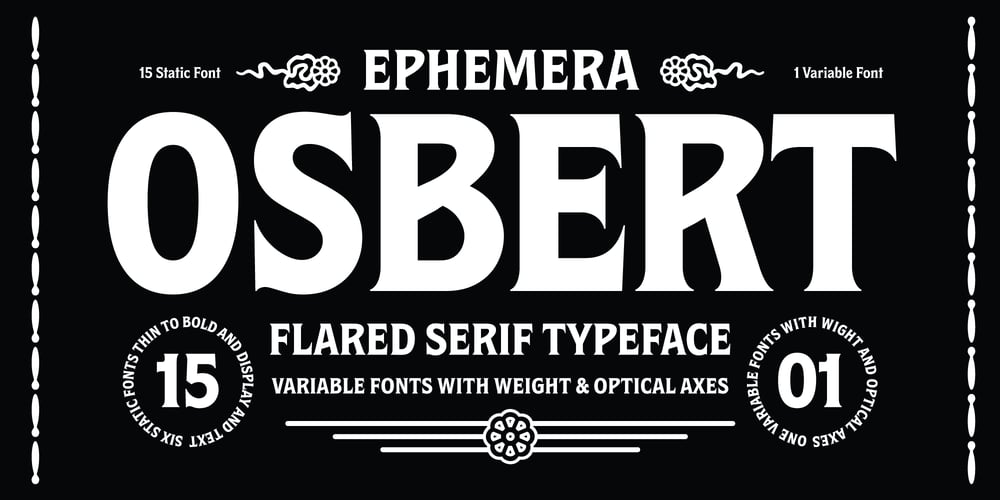
EFCO Osbert
EFCO Osbert font
EFCO Osbert Font Family was designed by Ilham Herry and published by Ilham Herry. EFCO Osbert contains 16 styles and family package options. Meet Osbert, the font that effortlessly marries vintage charm with a contemporary flair. Imagine the nostalgic allure of old tin labels, now reimagined with a fresh twist. With its playful flared serifs and diagonal bars, Osbert brings a touch of modern to classic aesthetics.Boasting a whopping 15 static styles and a variable font, Osbert offers a playground of possibilities for designers. And with three distinct sub-families – text, regular, and display – finding that perfect balance in your designs has never been easier, whether you’re crafting some typographic badges, editorial, logo, branding, poster, print, signage, etc. So go ahead, let Osbert add a touch of timeless coolness to your next project!